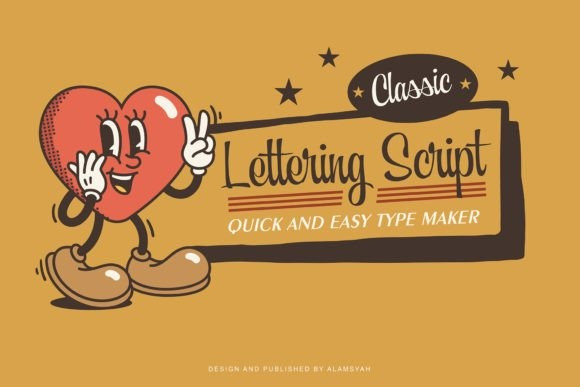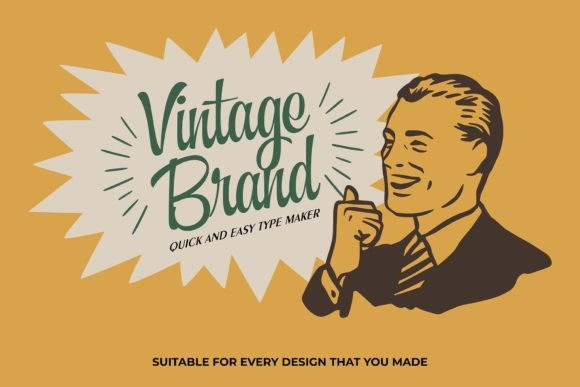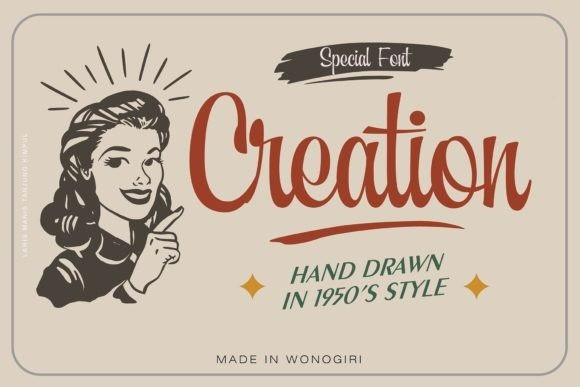
Creation Script Font
Creation Script Font, is a creative and retro-style script font that brings a touch of nostalgia to your designs. Its elegant, flowing letterforms are inspired by vintage signage and hand-lettered typography. With its unique style and playful curves, Creation adds a sense of whimsy and charm to any project, whether it’s logos, packaging, invitations, or branding materials. Let your creativity shine with Creation!